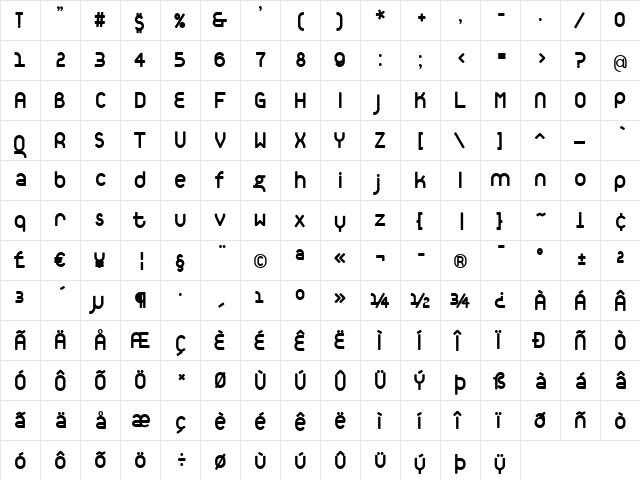
TantalusAlternativeBold Regular Font Preview
TantalusAlternativeBold Regular
TantalusAlternativeBold Regular Font Details
Design Context for TantalusAlternativeBold Typeface
TantalusAlternativeBold takes a measured approach to typography — its balanced proportions and neutral character make it a reliable workhorse for both digital and print work. The heavy weight commands attention and anchors typographic hierarchies.